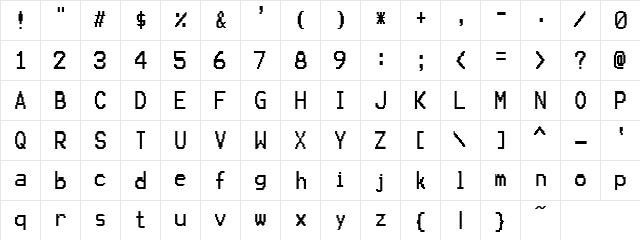
Kutir Kalaman Regular
Design Context for Kutir Kalaman Typeface
Kutir Kalaman is a composed and adaptable typeface that performs quietly and consistently across a wide range of design contexts.
Pro Tip: Use Kutir Kalaman in both headline and body roles to test its range before committing to a single application.